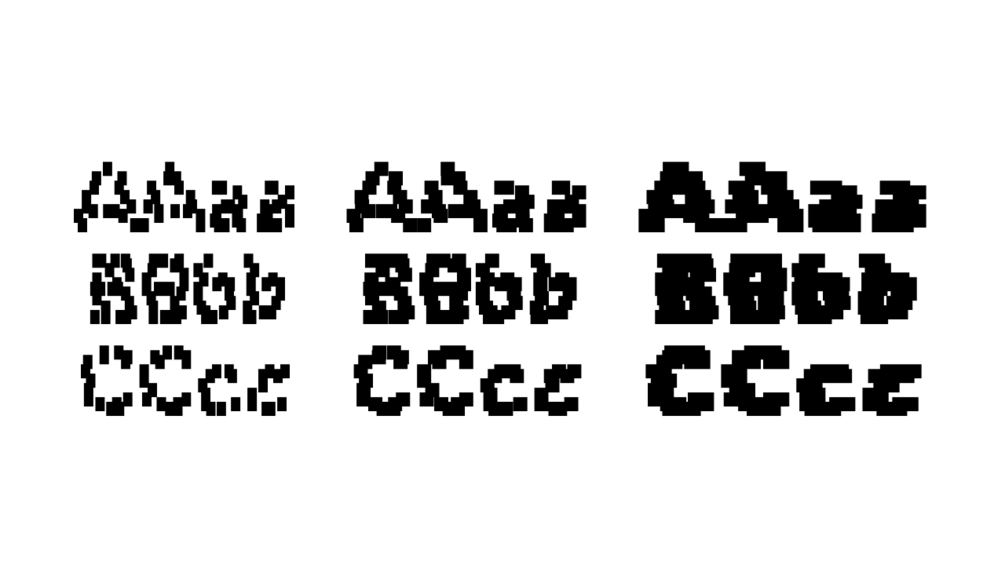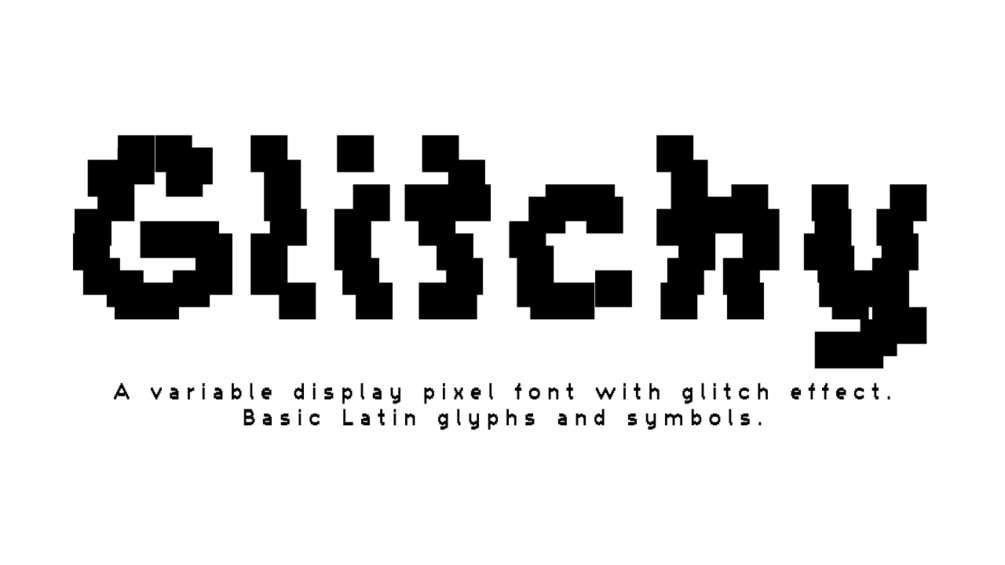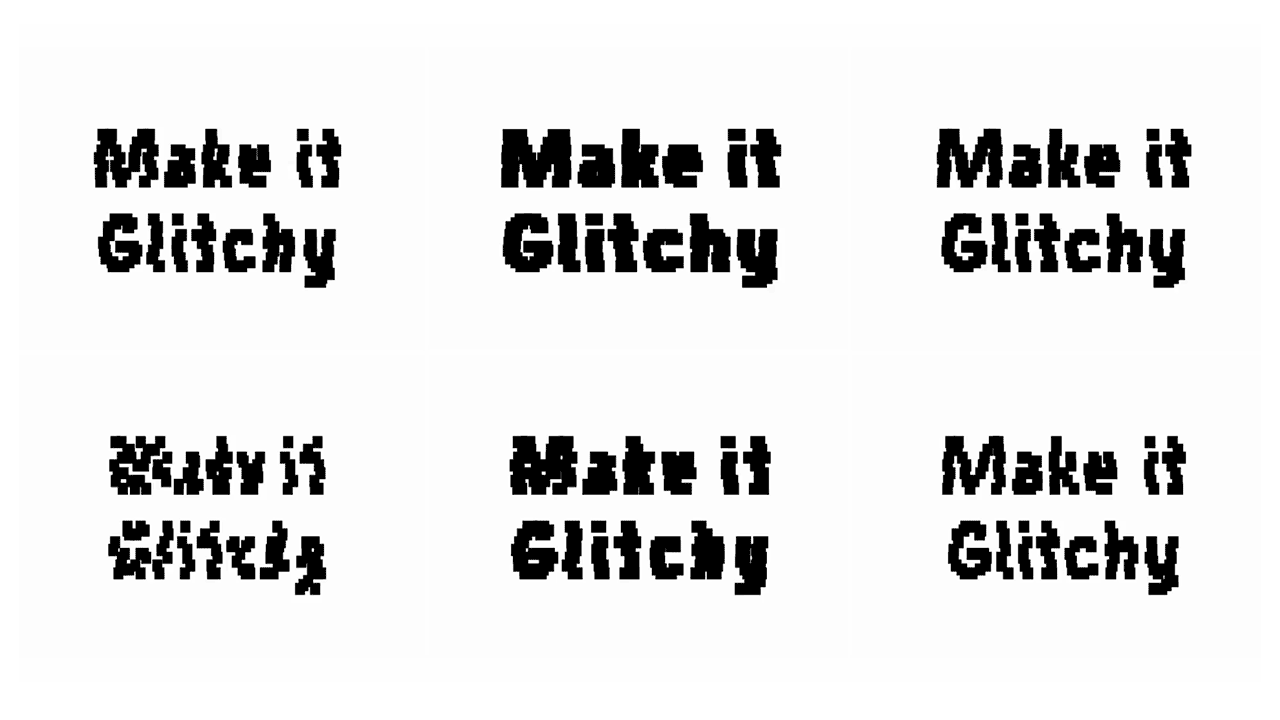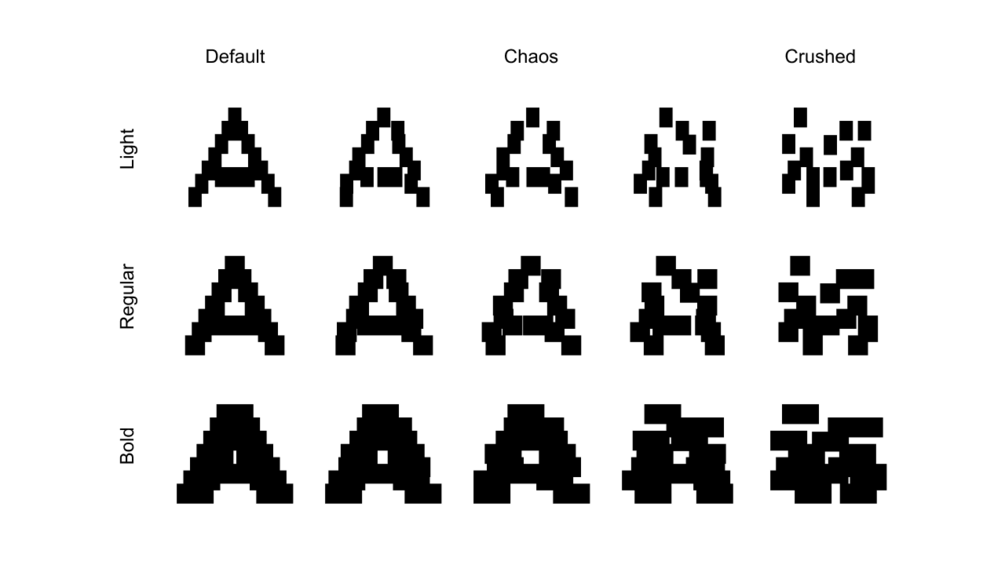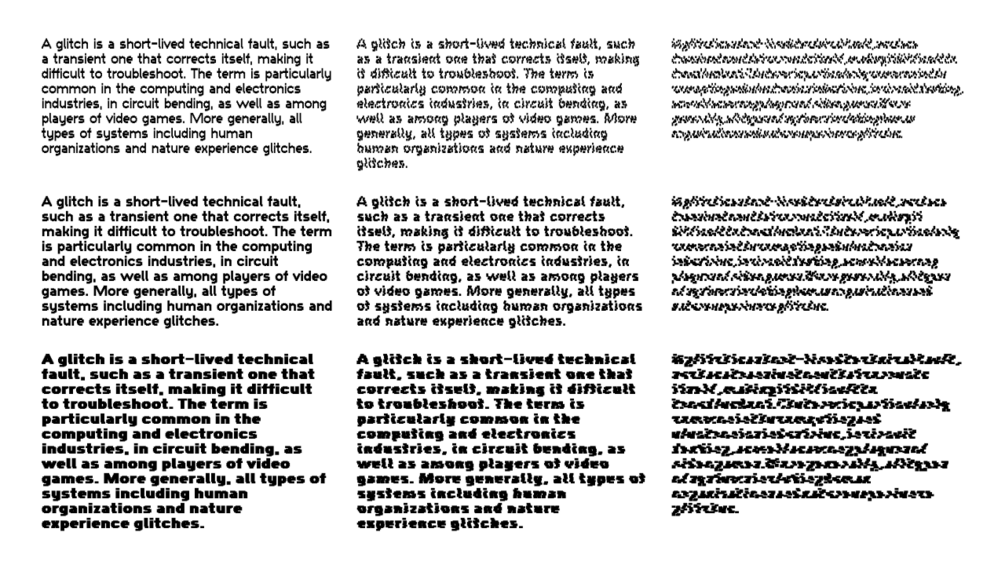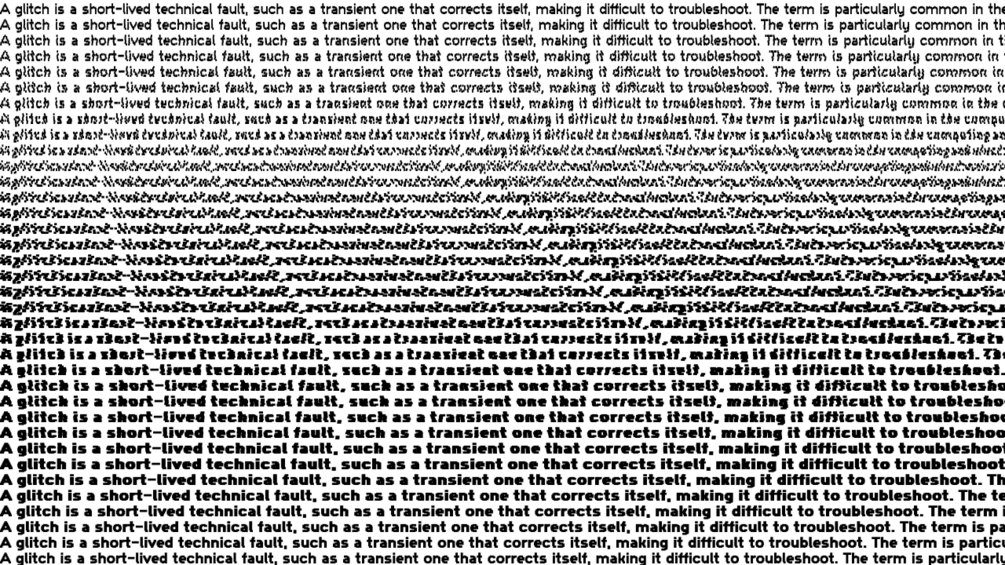
Glitchy - variable font (free for personal use)
Glitchy is a variable pixel font with a glitch effect.
The basic Latin glyphs and symbols are included. Also there are contextual alternates to get more interesting patterns in glitch variations.
There are two axes available: width — change it to make the text bold; and noise — change it to make the font glitch until it becomes completely unreadable.